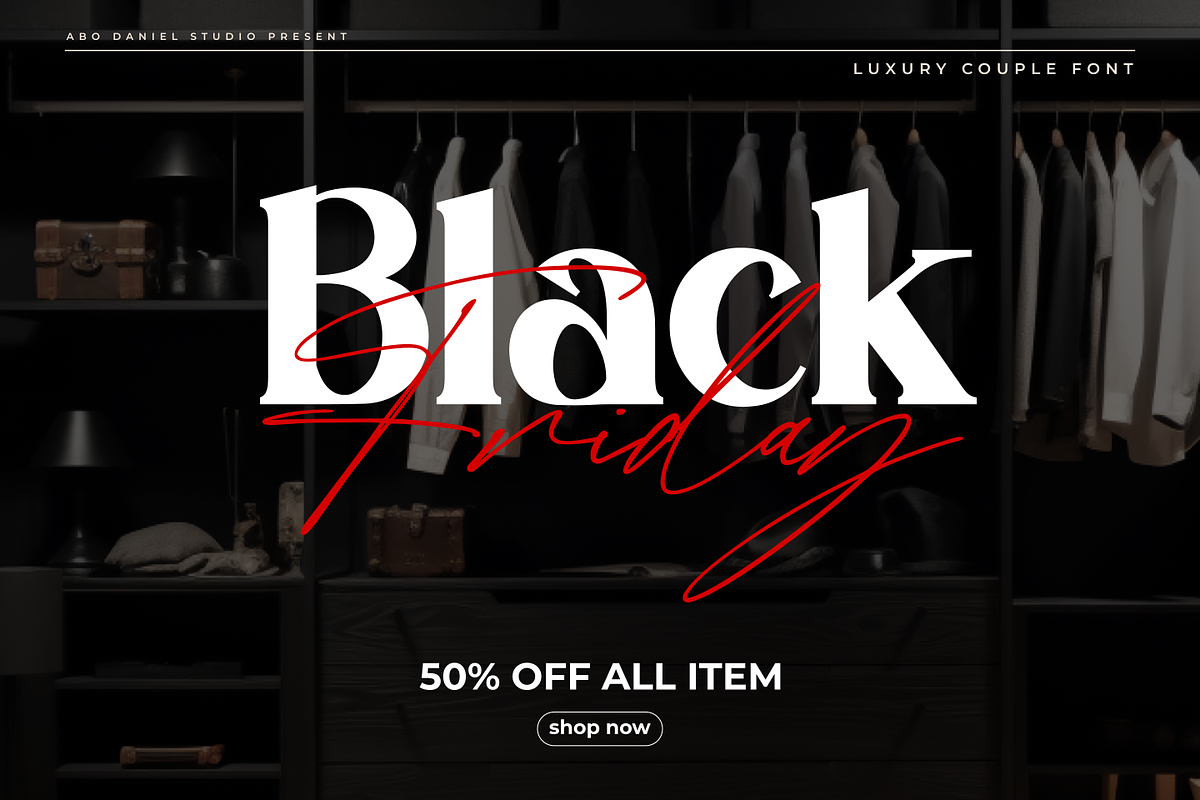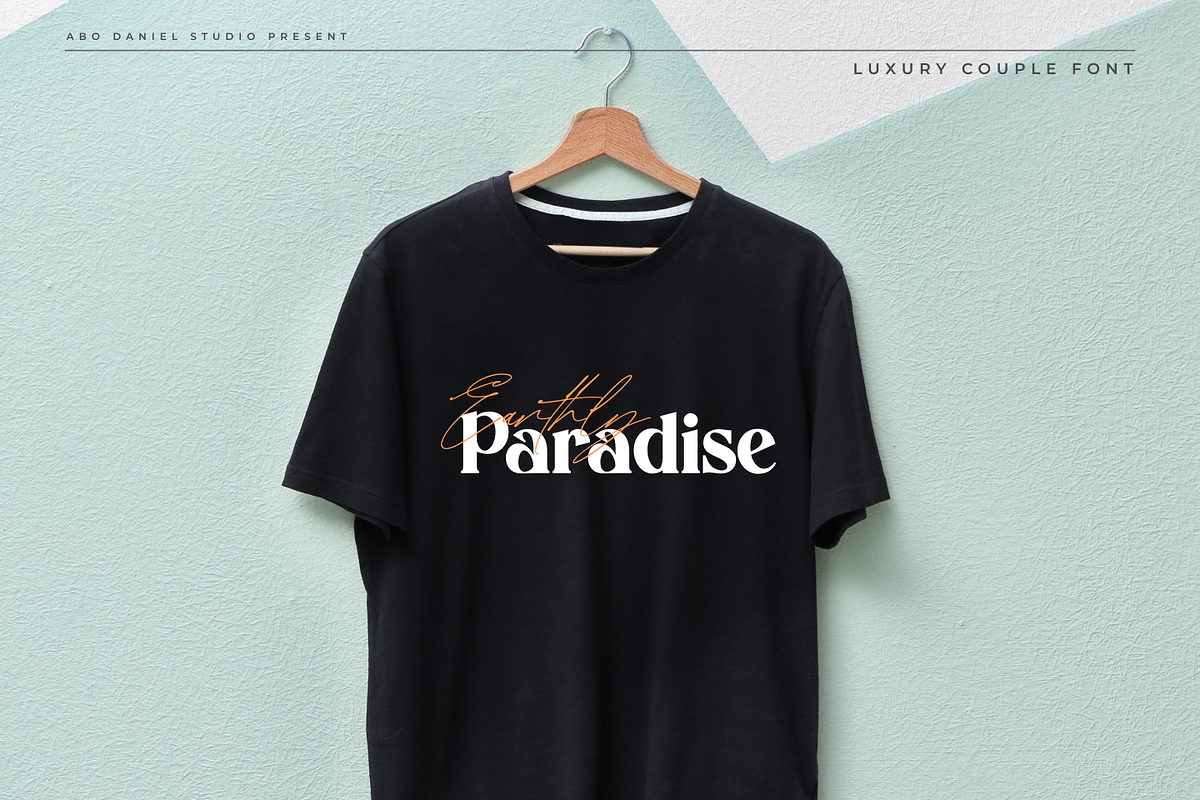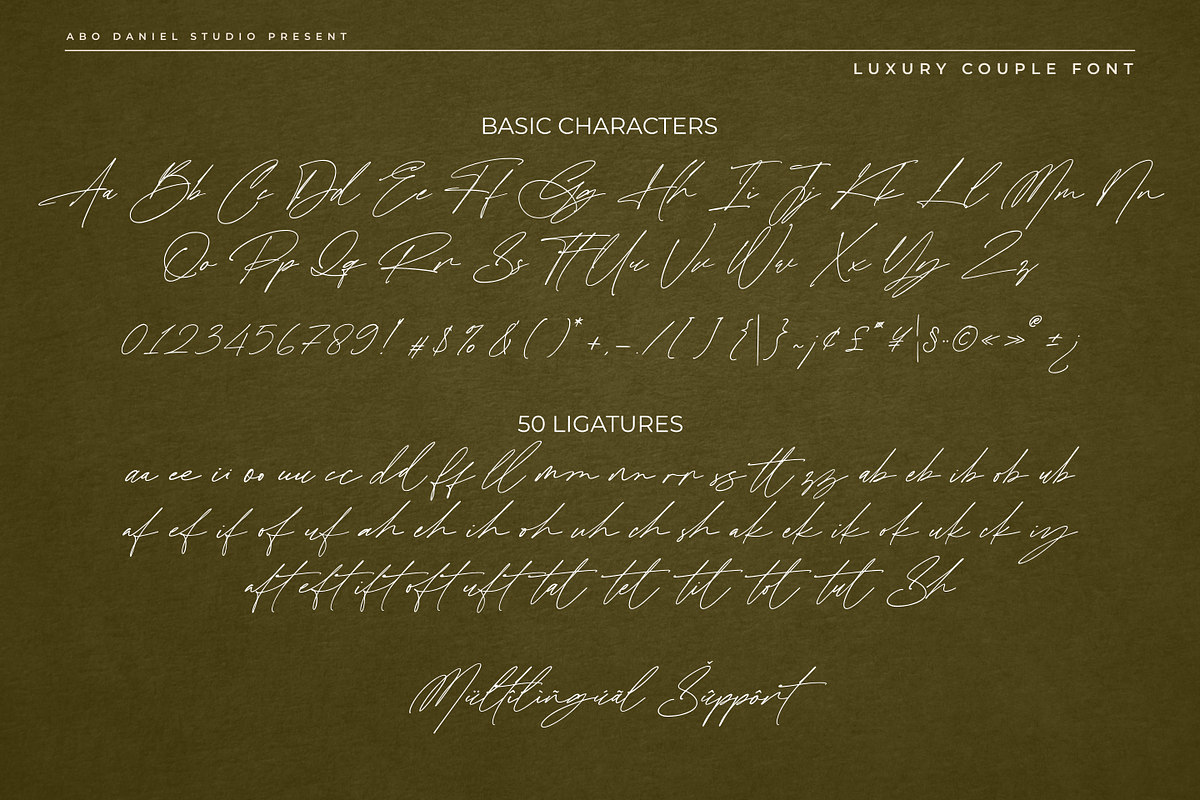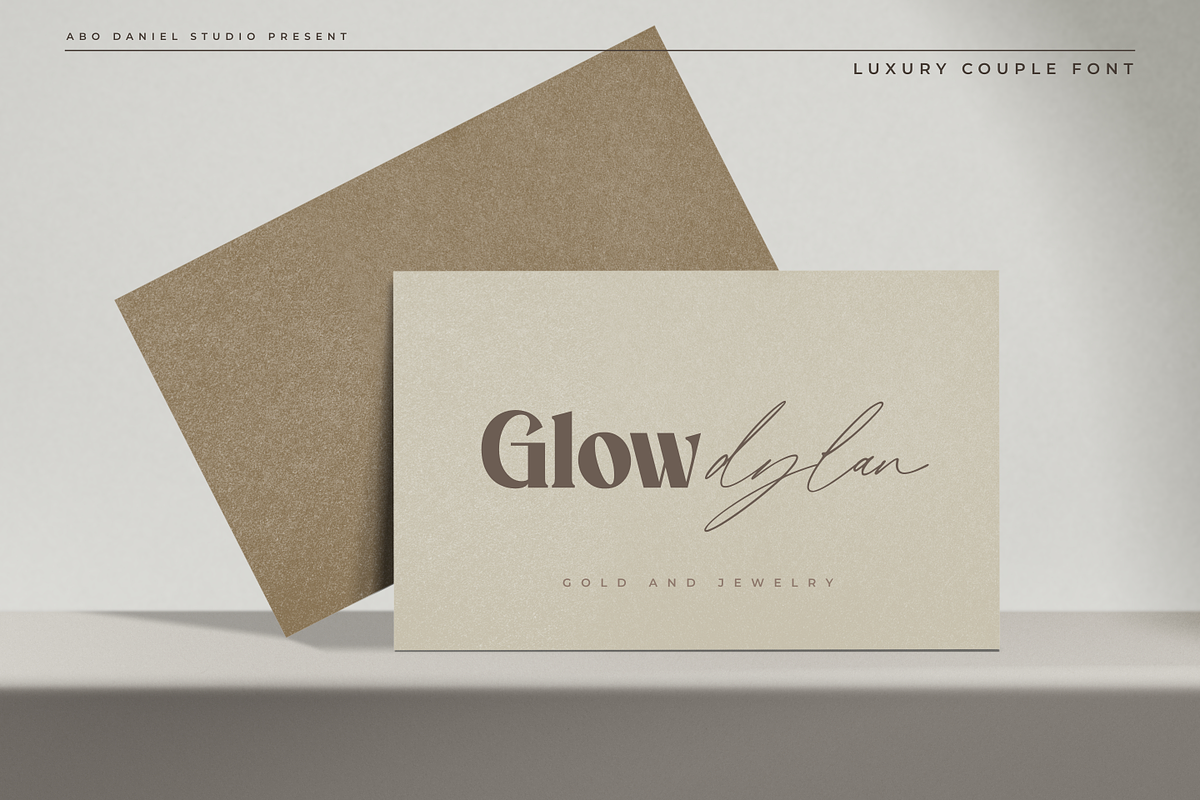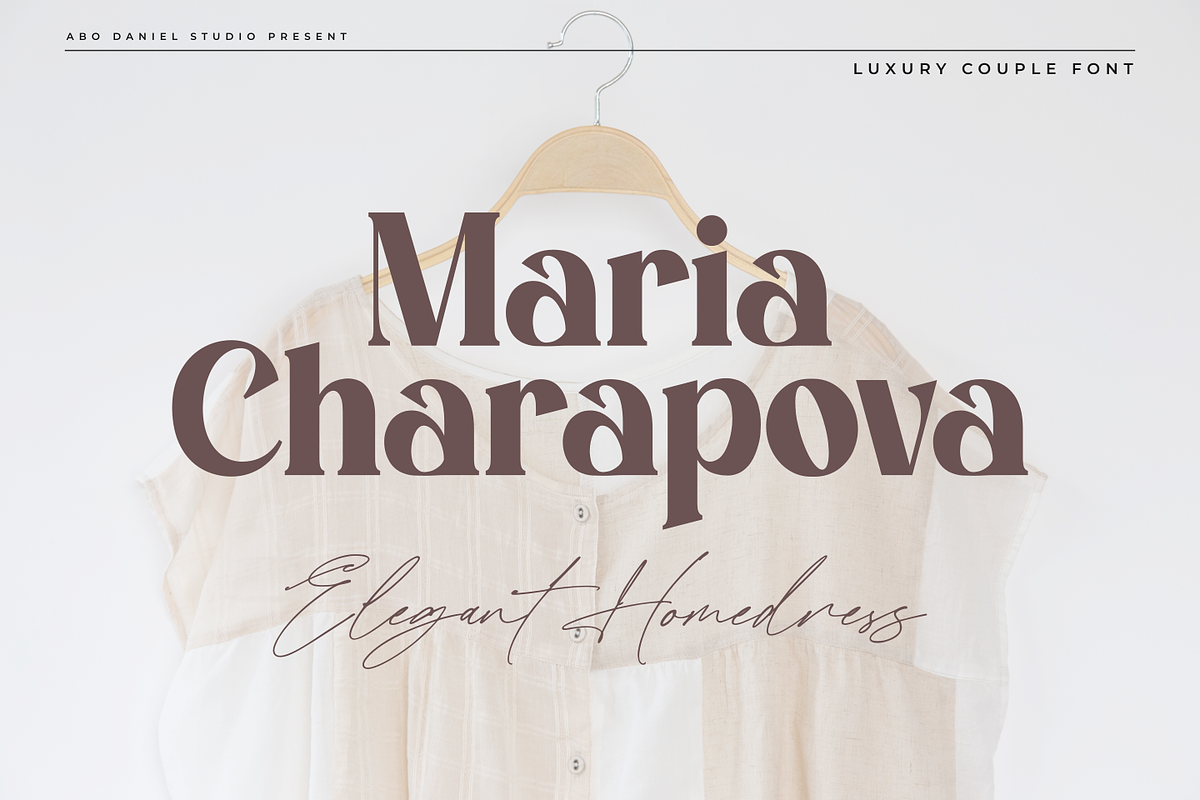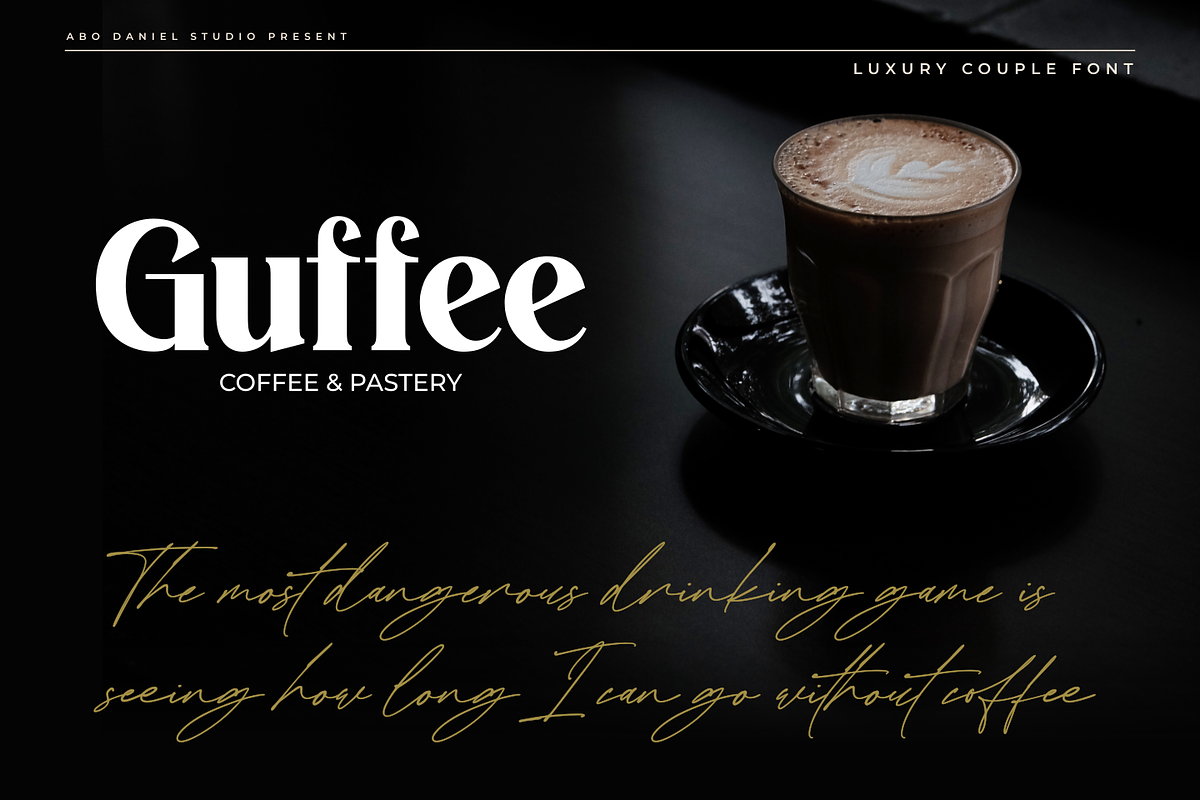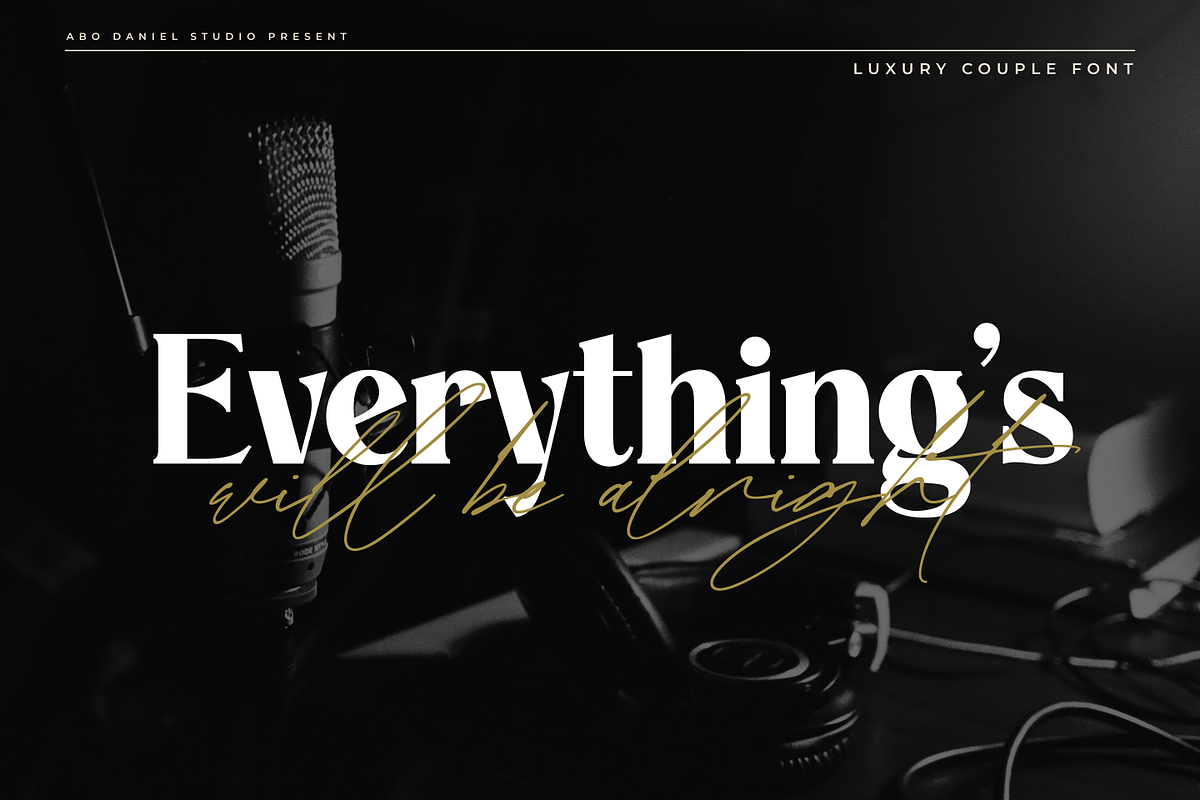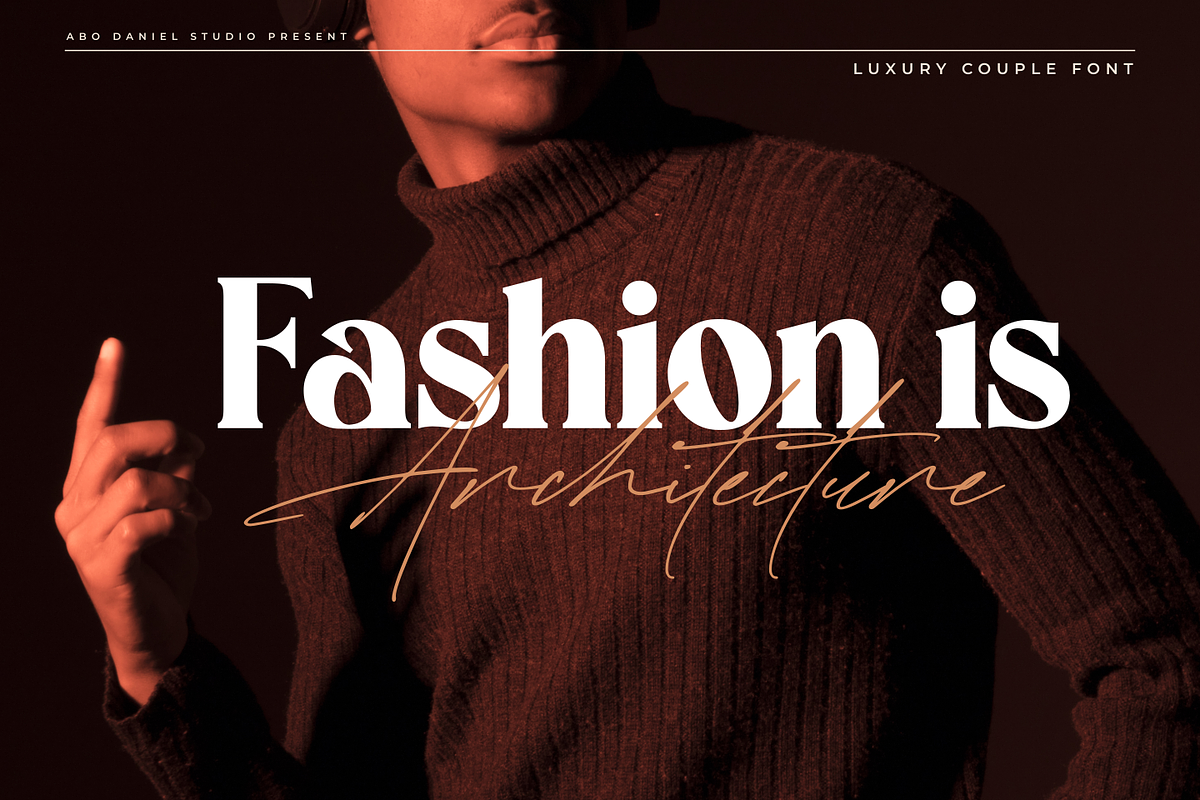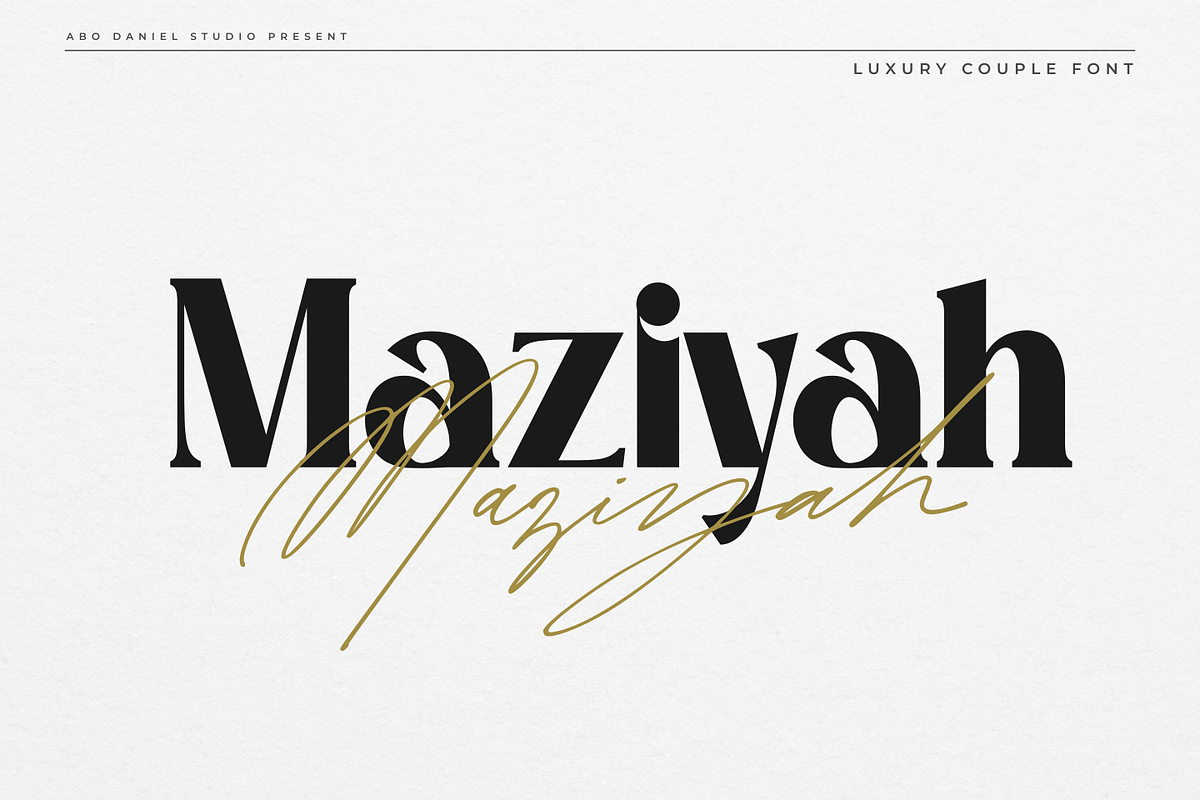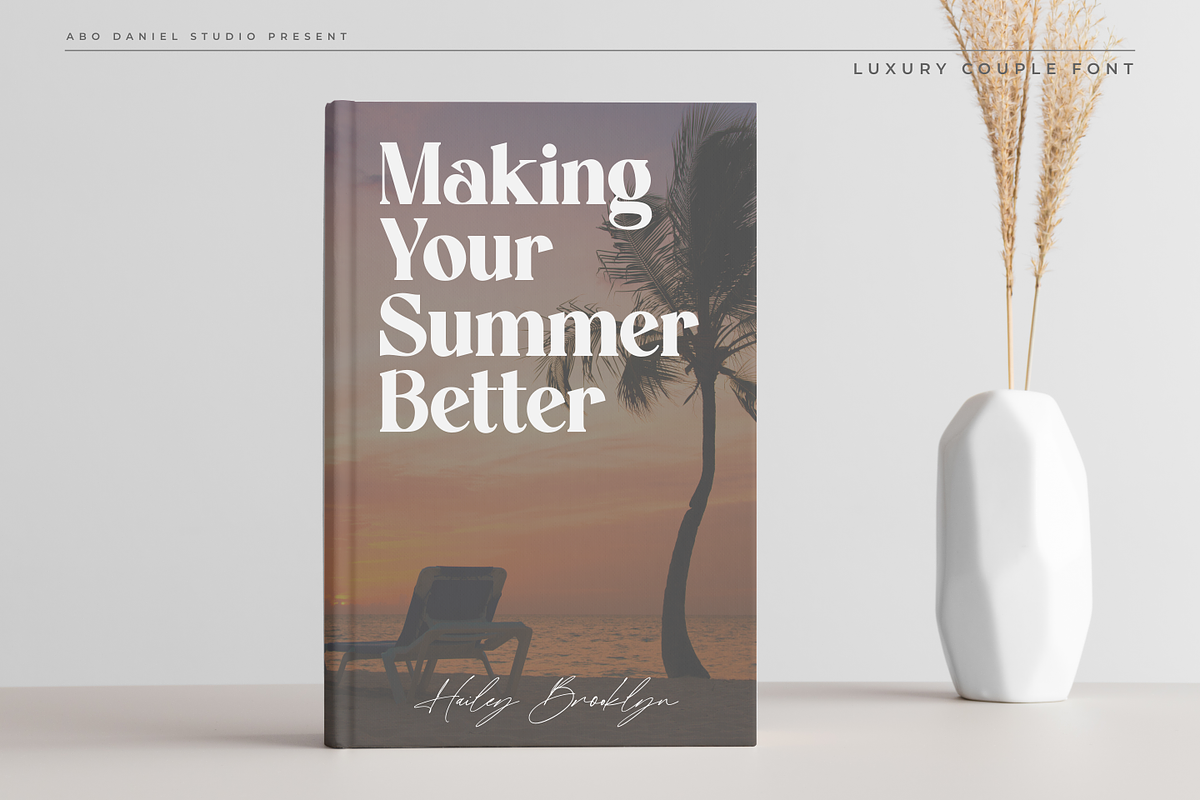
Maziyah
Maziyah – Luxury Couple Font (Sans & Signature)
Maziyah is a graceful font duo that blends simplicity and sophistication in one package. This set comes with two complementary styles — Maziyah Sans and Maziyah Signature — giving you the perfect pair for creating timeless and versatile designs.
- Maziyah Sans offers a clean, modern look with smooth lines and balanced proportions, ideal for headlines, body text, and minimalist branding.
- Maziyah Signature brings a stylish handwritten script with flowing strokes and natural elegance, perfect for adding a personal touch to logos, invitations, and social media posts.
- Together, they create harmony — a flawless combination of structured sans serif and expressive signature script.
With Maziyah, you can pair modern simplicity with handwritten elegance — a beautiful duo that elevates your creative projects.